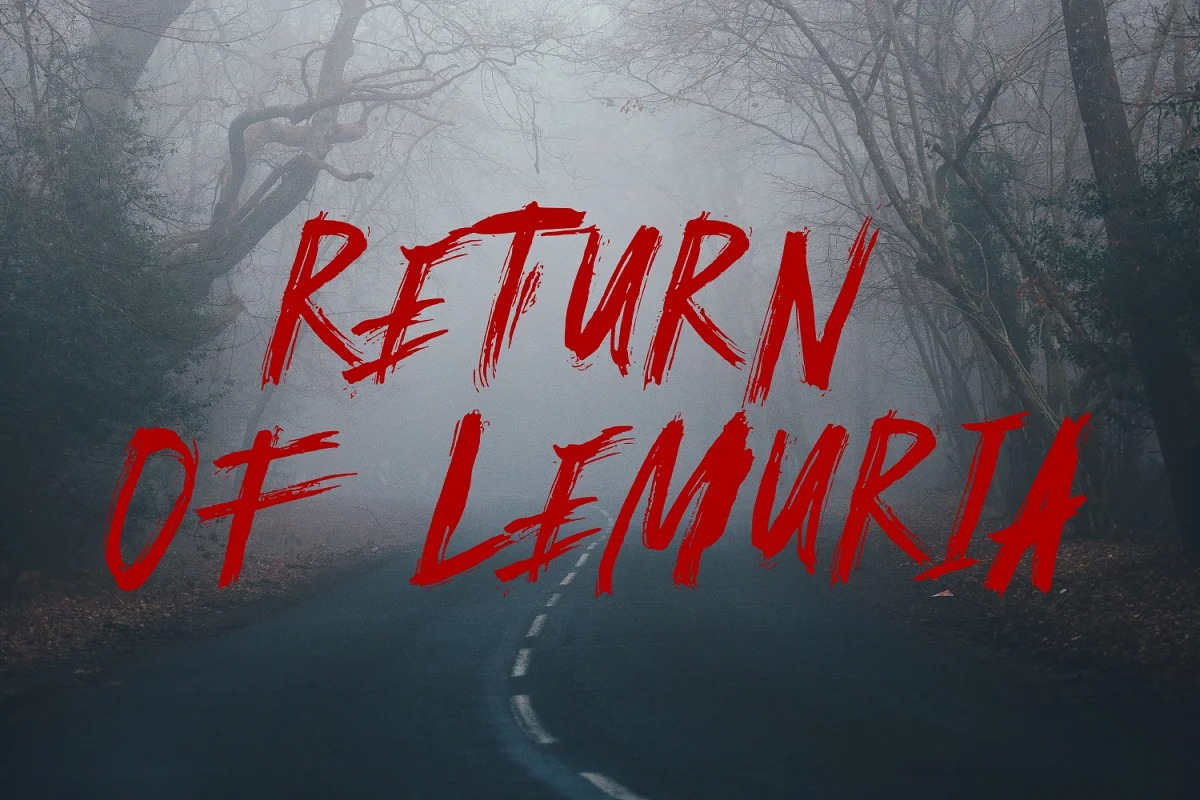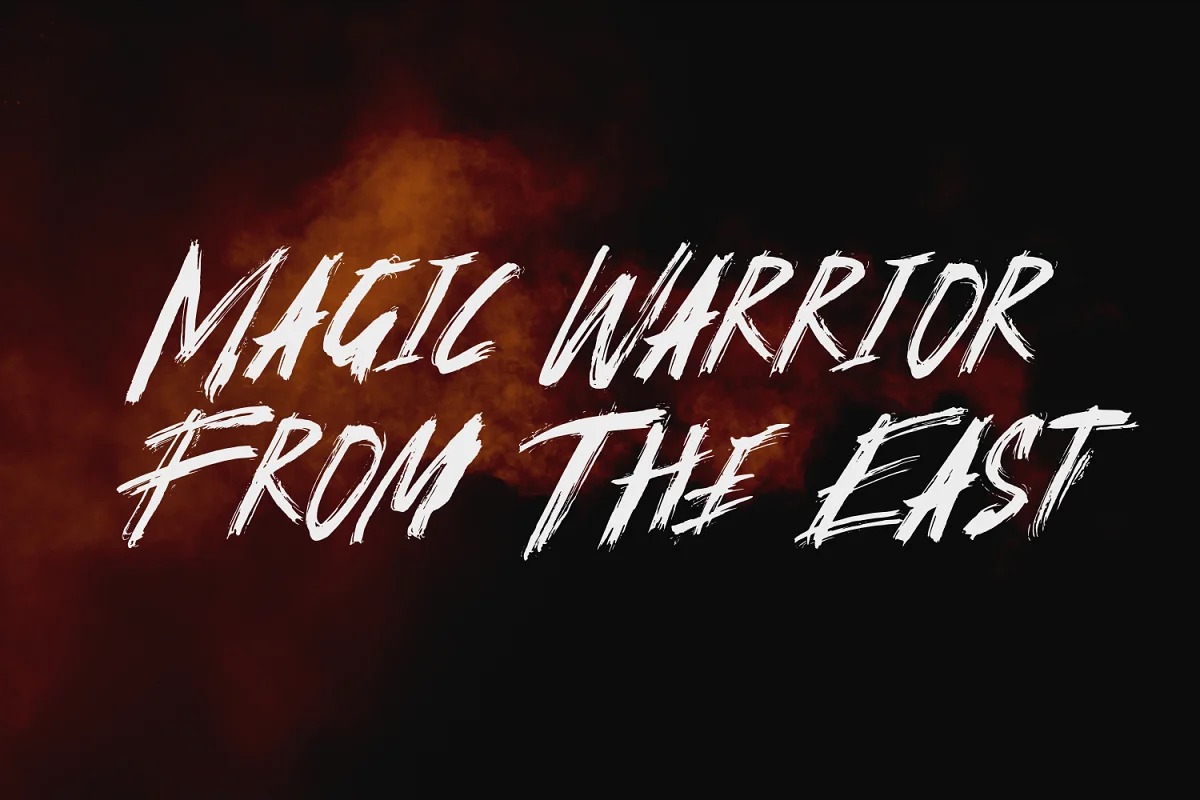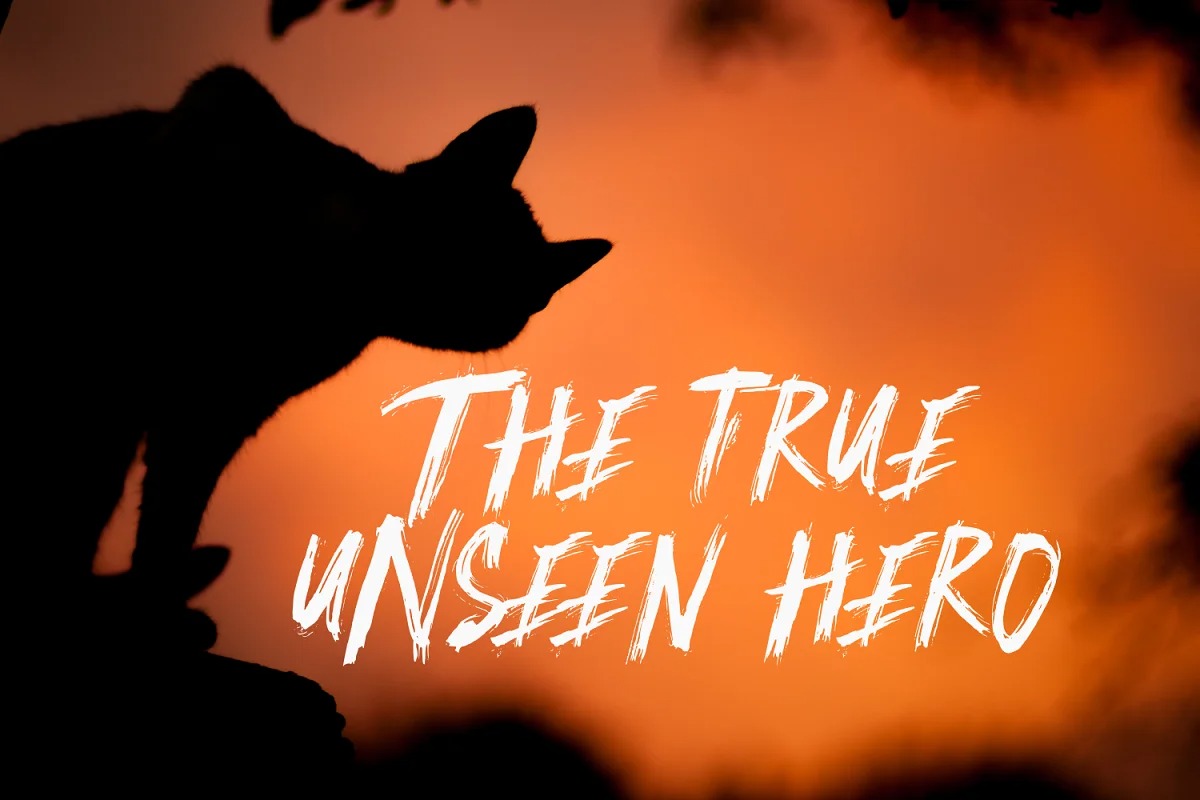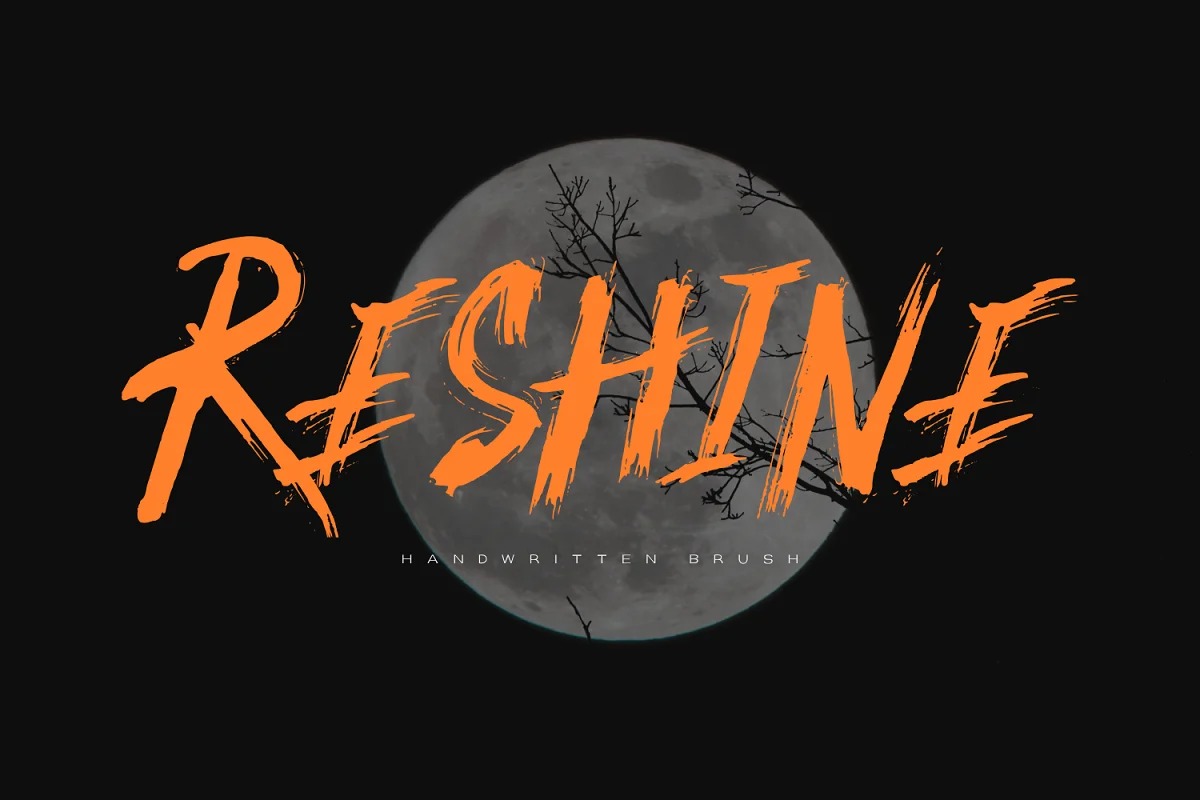
Reshine Font
Reshine Brush Font
This font is a textured natural style and classy style with a clear style and dramatic movement. Made from font designer named Mozyen Studio. It’s a graffiti-styled font that features a street art vibe. This font is suitable for designs such as t-shirts, sportswear, logos, advertisements, clothing, and more.